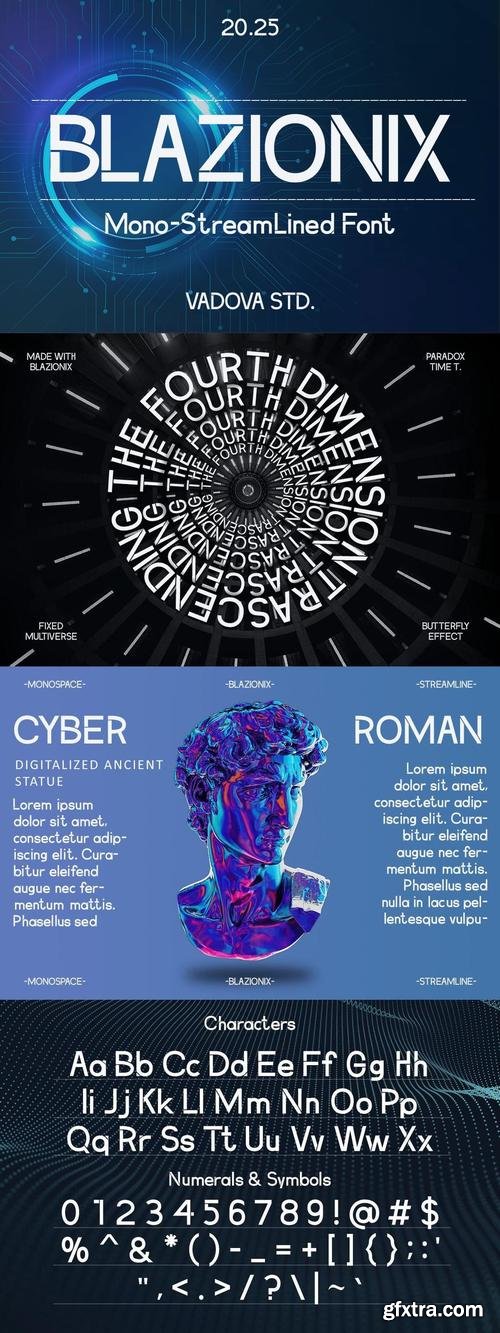
Elevate your designs with Blazionix Monospace Font, a font perfect for adding elegance and style to your projects. Whether it’s for quotes, logotypes, magazine headers, or more, this versatile typeface ensures your text stands out beautifully.
- Uppercase & Lowercase characters
- Numeral & Punctuations